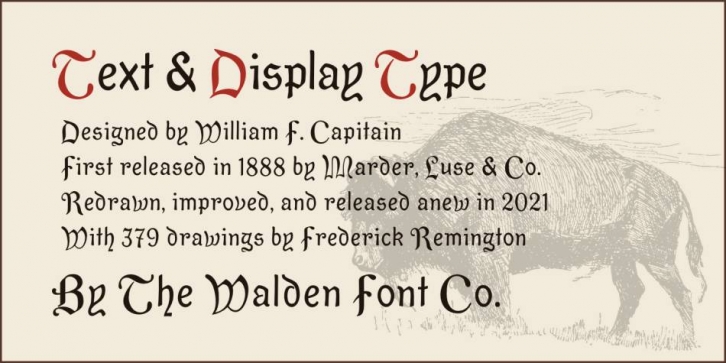
WF Hiawatha is a modern revival of an early Art Nouveau typeface first issued in 1888. Stately and playful at the same time, its unique letterforms make WF Hiawatha the perfect choice for fancy text, titling, display, or signage usages.
It features a complete set of completely redrawn characters, supporting Western and Eastern European languages, with ligatures, a border, and several ornaments. Included with the font is a royalty-free set of 379 evocative pen-and-ink drawings by Frederick Remington, from the 1891 edition of Longfellow’s epic poem “The Song of Hiawathaâ€.